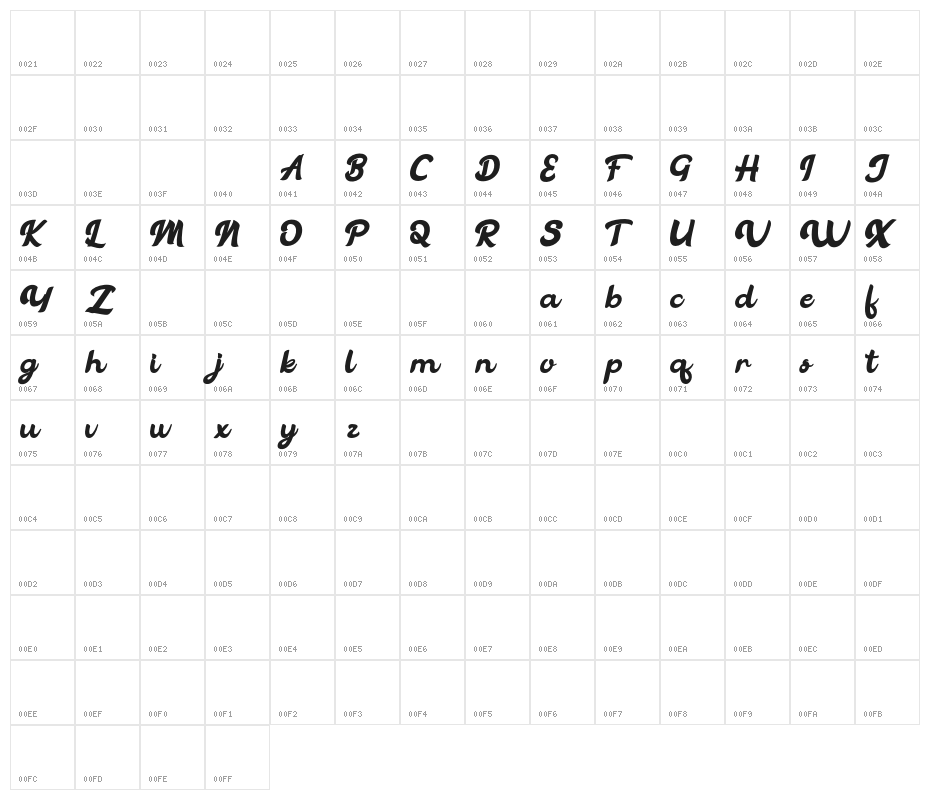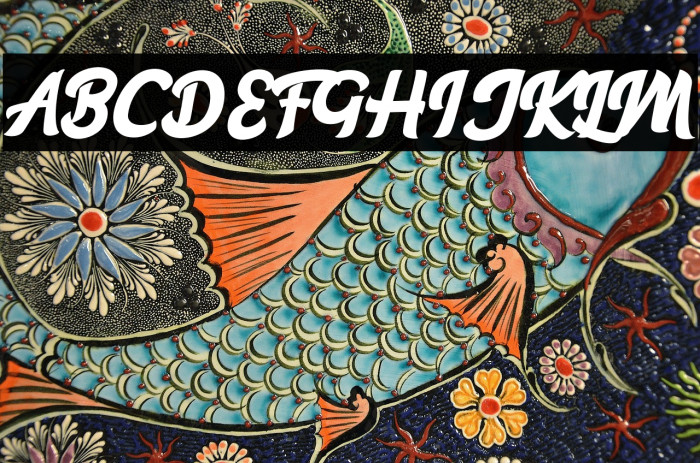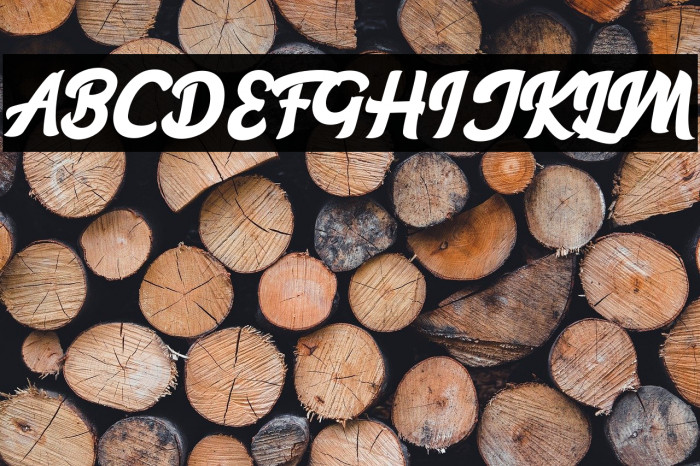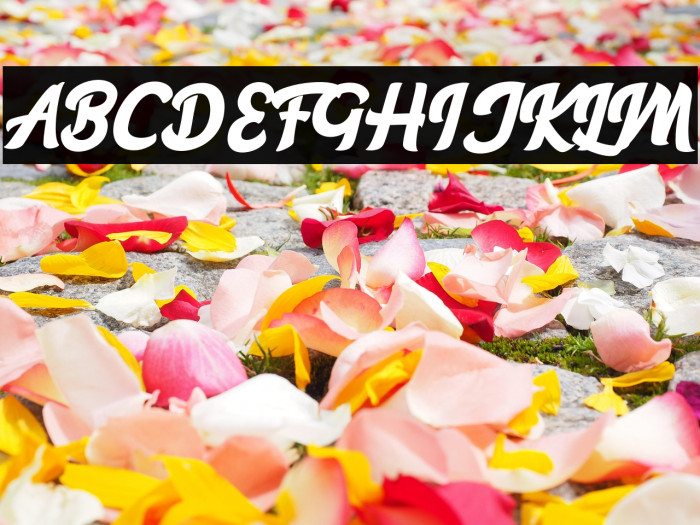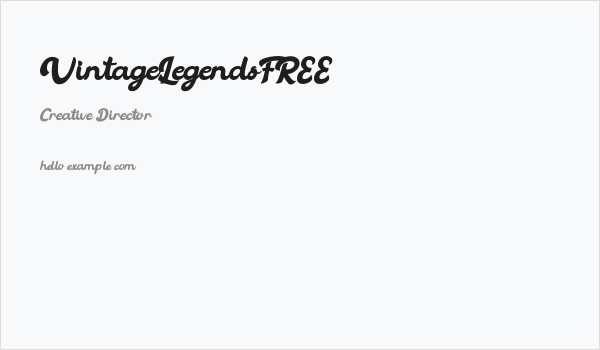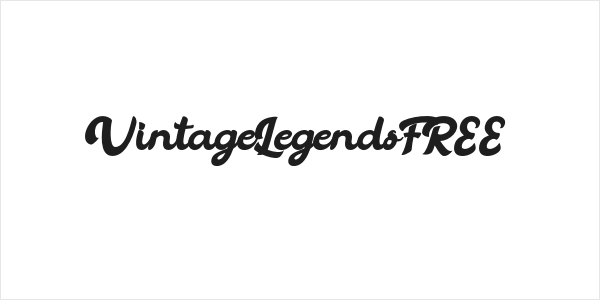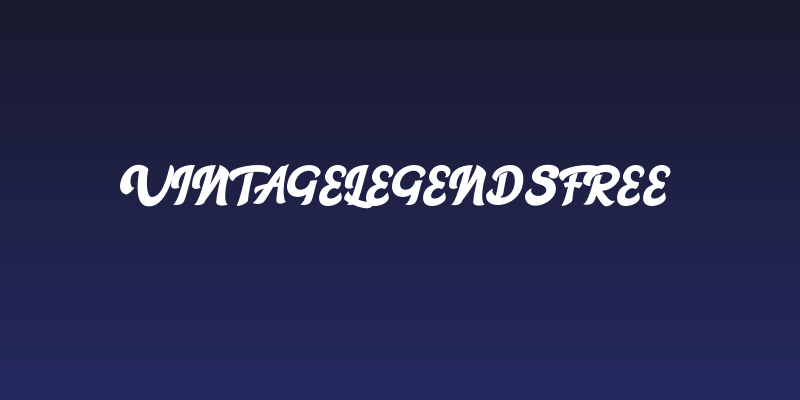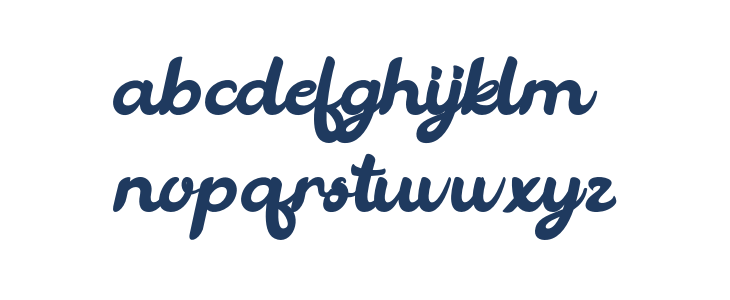
VintageLegendsFREE Font
VintageLegendsFREE Description
This font features a bold, flowing script style that exudes a vintage charm. The characters are interconnected, creating a seamless and elegant appearance. The uppercase letters are slightly more ornate, with flourishes that add a touch of sophistication. The lowercase letters maintain a consistent flow, enhancing readability while preserving the decorative nature. The overall design is reminiscent of classic calligraphy, making it suitable for projects that require a touch of nostalgia and elegance. The bold strokes and smooth curves give it a dynamic and lively feel, perfect for capturing attention.
| Proposed Projects | Ideal for wedding invitations, vintage-themed branding, greeting cards, and elegant signage. |